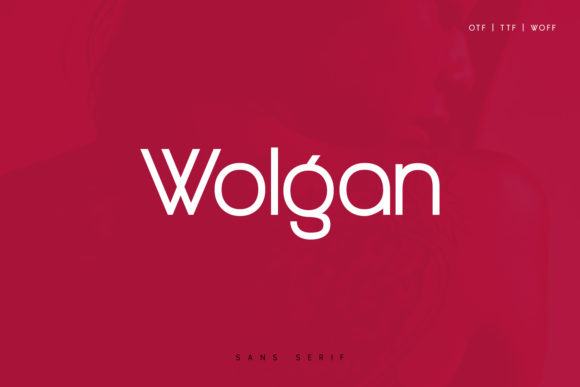
In a world saturated with digital noise, your designs yearn for a voice that cuts through the clutter and speaks volumes. Introducing Wolgan Font, a font family born from the marriage of clarity and simplicity, ready to ignite your creations with eloquence and poise.
This sans serif masterpiece is the brainchild of Design Stag, a collective of passionate typographers driven by the pursuit of excellence. Their meticulous attention to detail is evident in every curve and stroke of the Wolgan Font, resulting in a typeface that exudes both sophistication and approachability.
With its clean lines and unpretentious demeanor, Wolgan Font seamlessly blends into any design landscape, enhancing your message without overpowering it. Its versatility knows no bounds, making it the perfect choice for a diverse range of projects, from elegant branding and web design to captivating social media posts and print materials.
Whether you're a seasoned designer seeking a reliable workhorse or a novice just starting your creative journey, Wolgan Font is your steadfast companion. Its intuitive nature makes it a joy to use, allowing you to focus on your vision without getting bogged down by technicalities.
Embrace the power of simplicity and let Wolgan Font elevate your designs to new heights. Experience the difference a well-chosen font can make, and see your work transformed with a touch of elegance and clarity.
Unlock the full potential of Wolgan Font today and embark on a journey of creative freedom like never before. Immerse yourself in a world where your designs speak volumes, where every letter tells a story, and where your message resonates with your audience with unmatched impact.